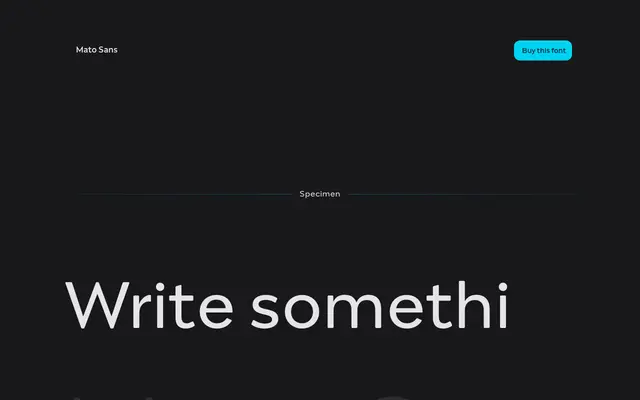
Mato Sans
A nine-weight sans-serif family with matching italics from Polish designer Maciej Włoczewski, sold through Capitalics.
Mato Sans spans nine weights from Thin to Black, each with a corresponding italic, giving eighteen styles in total. The family is offered as a full bundle, a basic four-weight pack or individual cuts. Suited to text and interface work where a clean, unassuming sans is needed across a range of weights.
Mato Sans presents as a conventional sans-serif with a broad weight range and matching italics, consistent with a grotesque or general-purpose humanist sans classification. No condensed or display variants are indicated on the page.